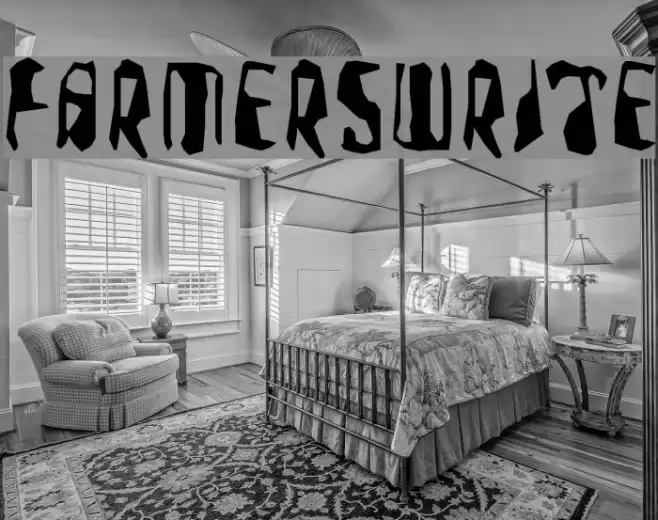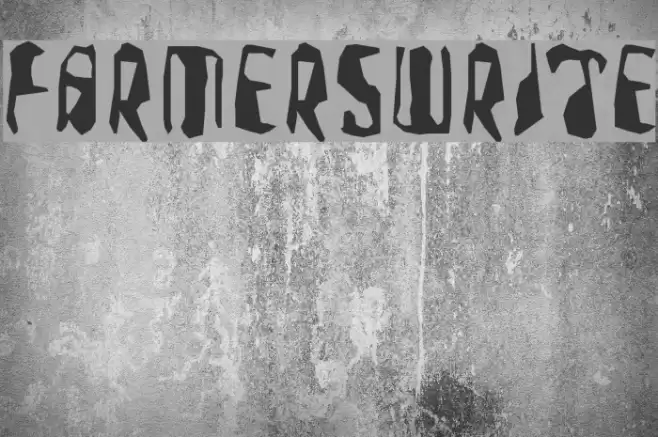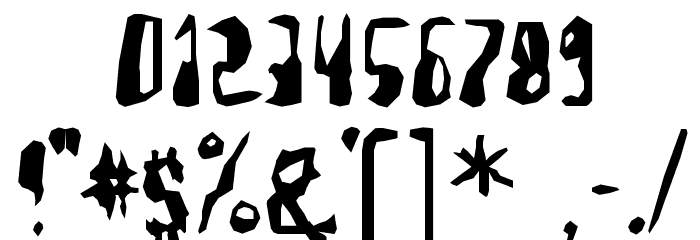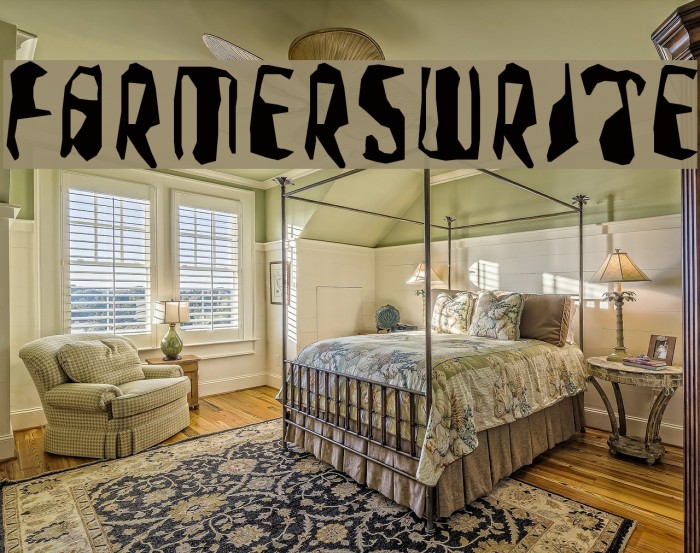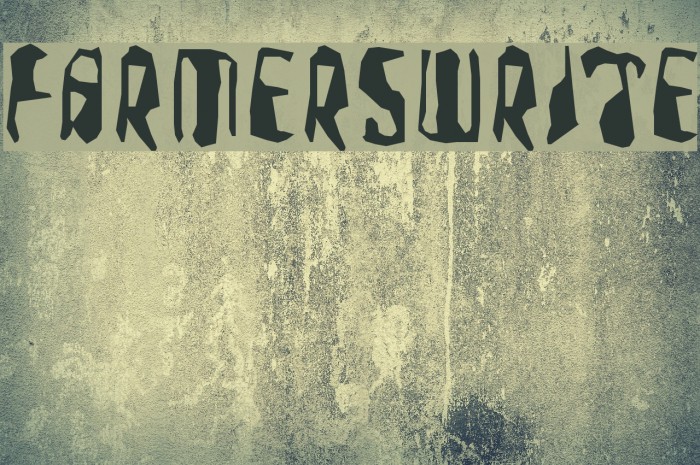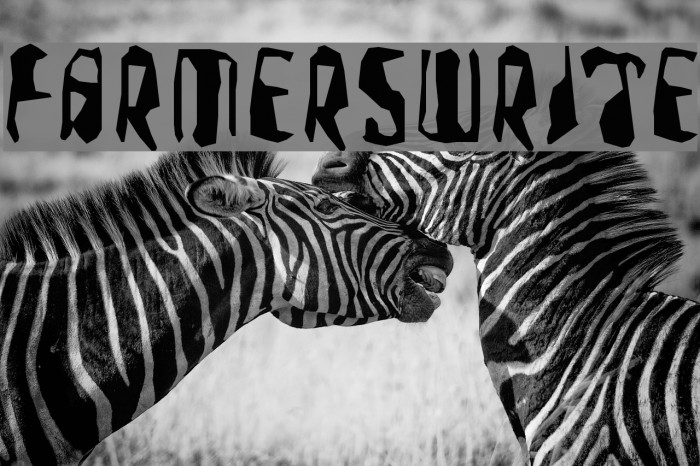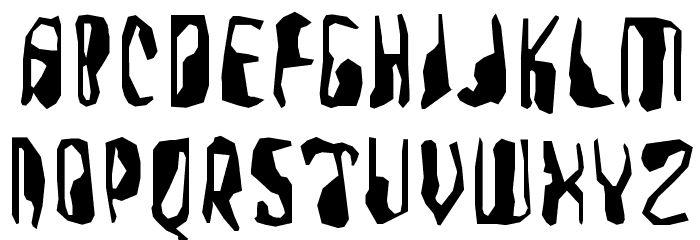
FarmersWrite Font
FarmersWrite Description
This font features a bold and rugged design, with each character appearing as if it has been carved out of stone or wood. The letters have an irregular, jagged edge, giving them a raw and organic feel. The uppercase and lowercase letters maintain a consistent style, with a strong emphasis on vertical lines and sharp angles. The numbers and special characters follow the same aesthetic, ensuring a cohesive look across all text. This font's unique style makes it stand out, offering a distinctive visual impact that is both artistic and unconventional.
A bold, rugged font with jagged, carved-like characters from Uncategorized fonts.
- Proposed Projects: Ideal for projects requiring a rustic or handcrafted feel, such as logos for outdoor brands, posters for music festivals, or titles for adventure-themed books.
- Overall Style: Rustic, Artistic
- Use Case: Logos, Posters, Titles